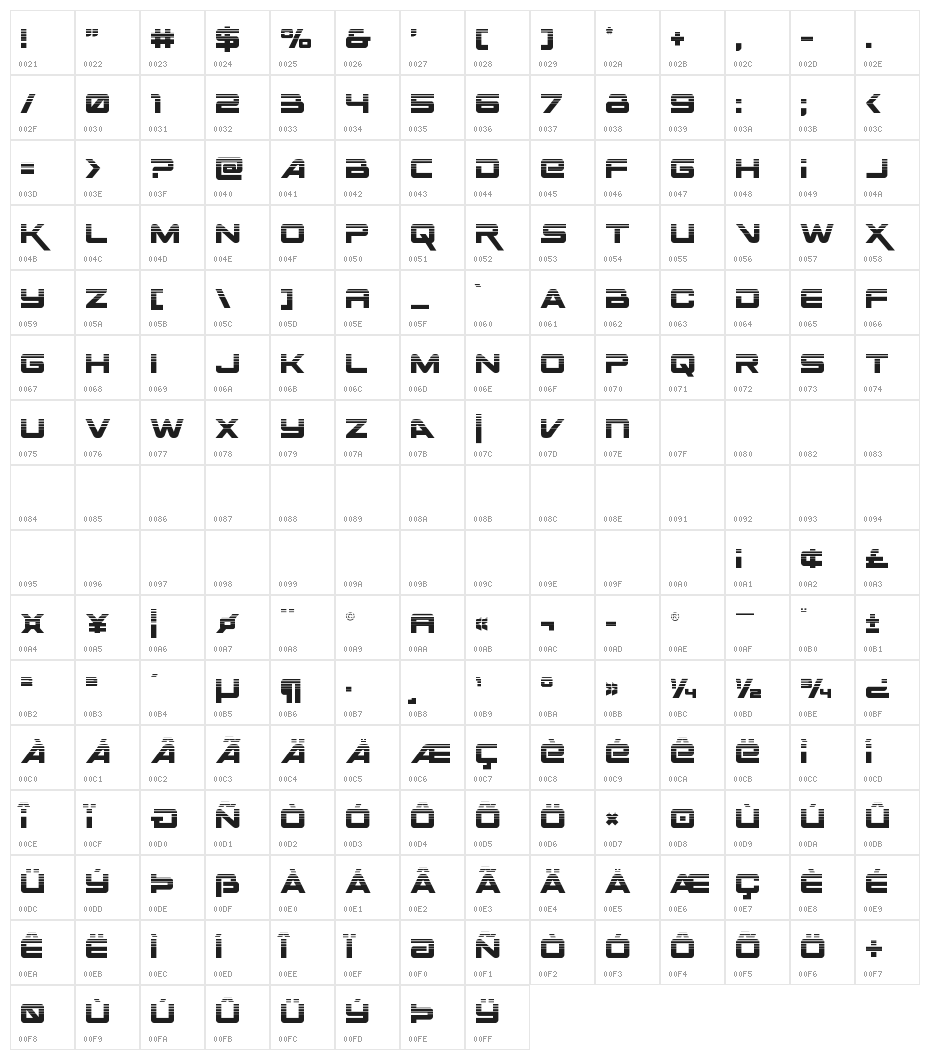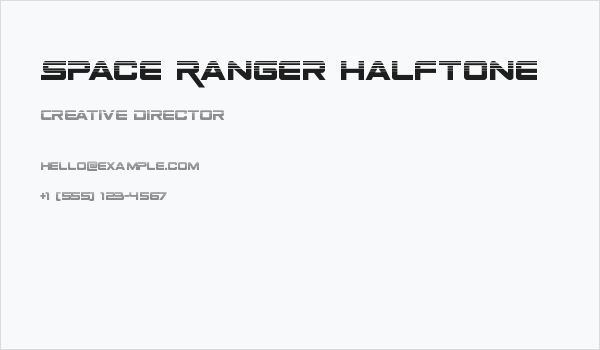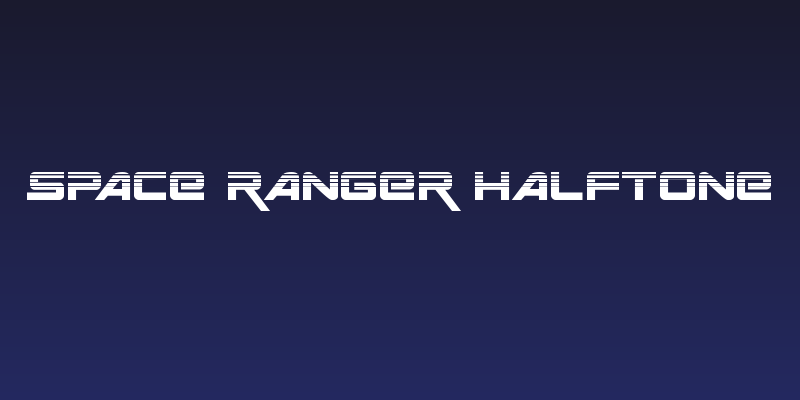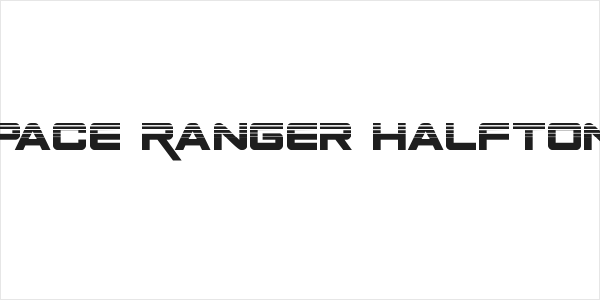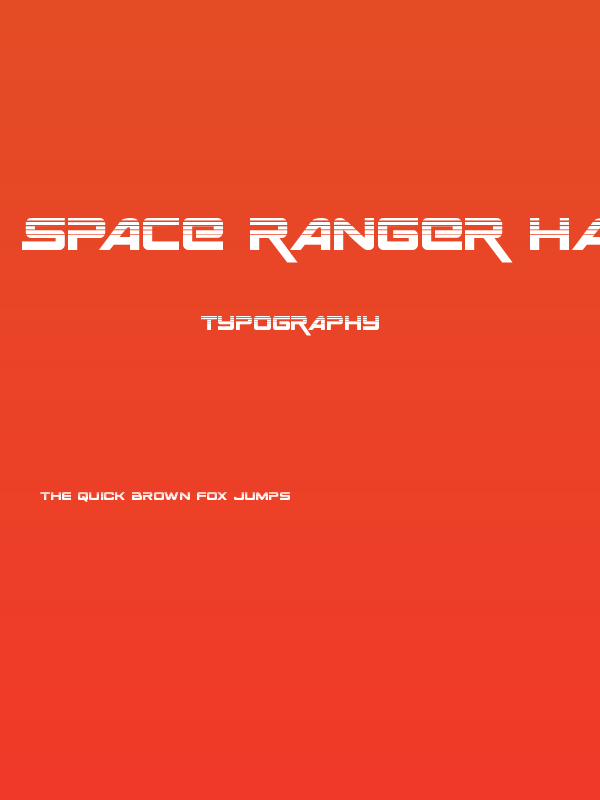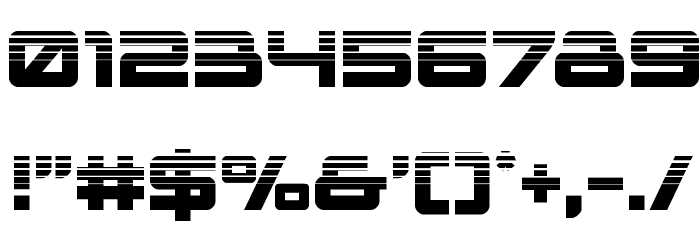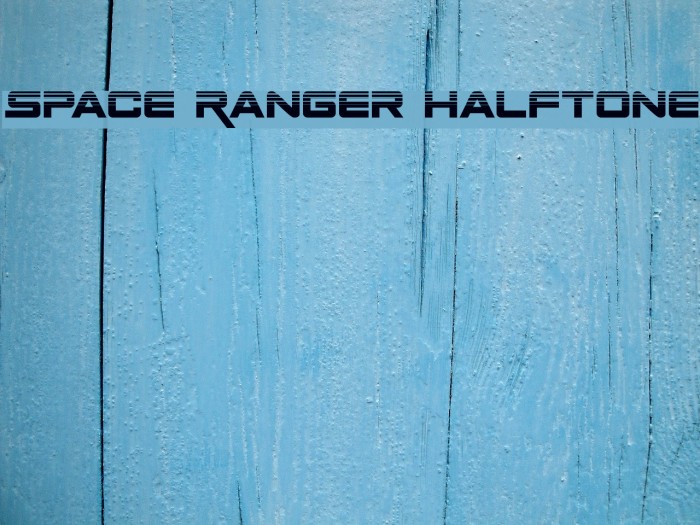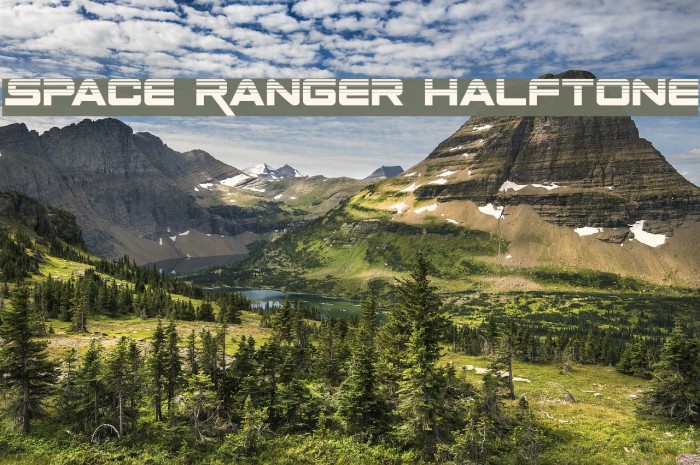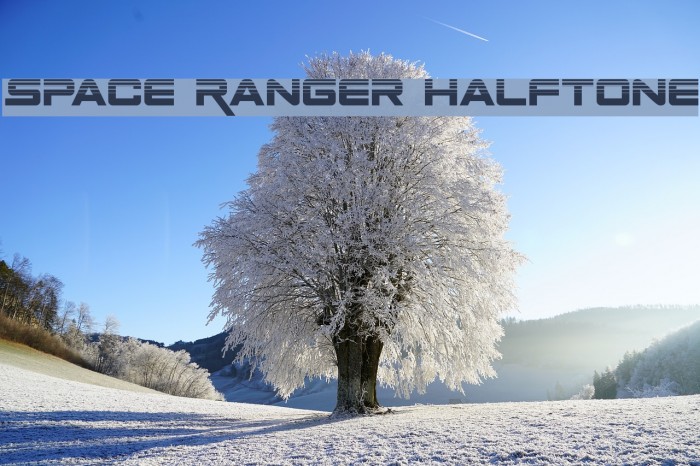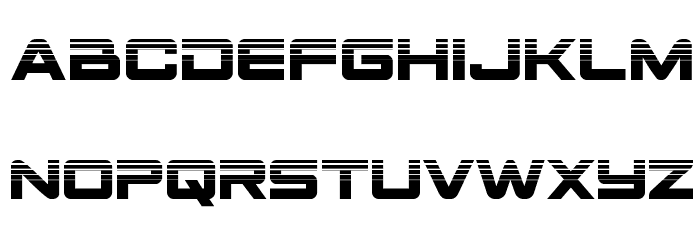
Space Ranger Halftone Font
Space Ranger Halftone Description
This font features a futuristic and bold design, characterized by its unique halftone pattern that gives it a distinct, space-age appearance. The uppercase letters are angular and geometric, with sharp edges and a sense of movement. The halftone effect is achieved through horizontal lines that create a sense of depth and texture. The numbers and special characters follow the same design principles, ensuring consistency across the font. This style is eye-catching and ideal for projects that require a modern and technological feel.
| Proposed Projects | Ideal for sci-fi themed posters, video game titles, technology branding, and futuristic event invitations. |